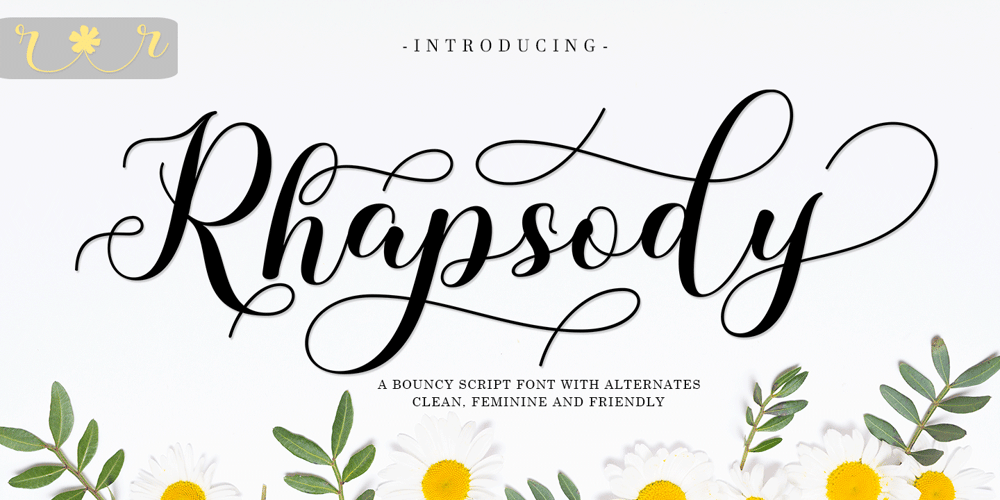
Rhapsody Script Font Family was designed by Sidiq Fahmi and published by Rotterlab Studio. Rhapsody Script contains 2 styles and family package options. Rhapsody is a handwritten script font with varying baseline, which is designed to convey elegance and style. It is smoothline, clean and feminine. Works perfectly for logos, magazines, menus, books, invitations, wedding / greeting cards, packaging, labels, t-shirt etc. All designs you will have a wonderful homemade touch with Rhapsody.Rhapsody features 400+ glyphs and 181 alternate characters. including initial and terminal letters, alternates, ligatures and multiple language support.To enable the OpenType Stylistic alternates, you need a program that supports OpenType features such as Adobe Illustrator CS, Adobe Indesign & CorelDraw X6-X7, Microsoft Word 2010 or later versions. and there are additional ways to access alternates / swashes, using Character Map (Windows).How to access all alternative characters using Adobe Illustrator:https://www.youtube.com/watch?v=XzwjMkbB-wQHow to access all alternative characters, using Windows Character Map with Photoshop:https://www.youtube.com/watch?v=Go9vacoYmBwThank you!